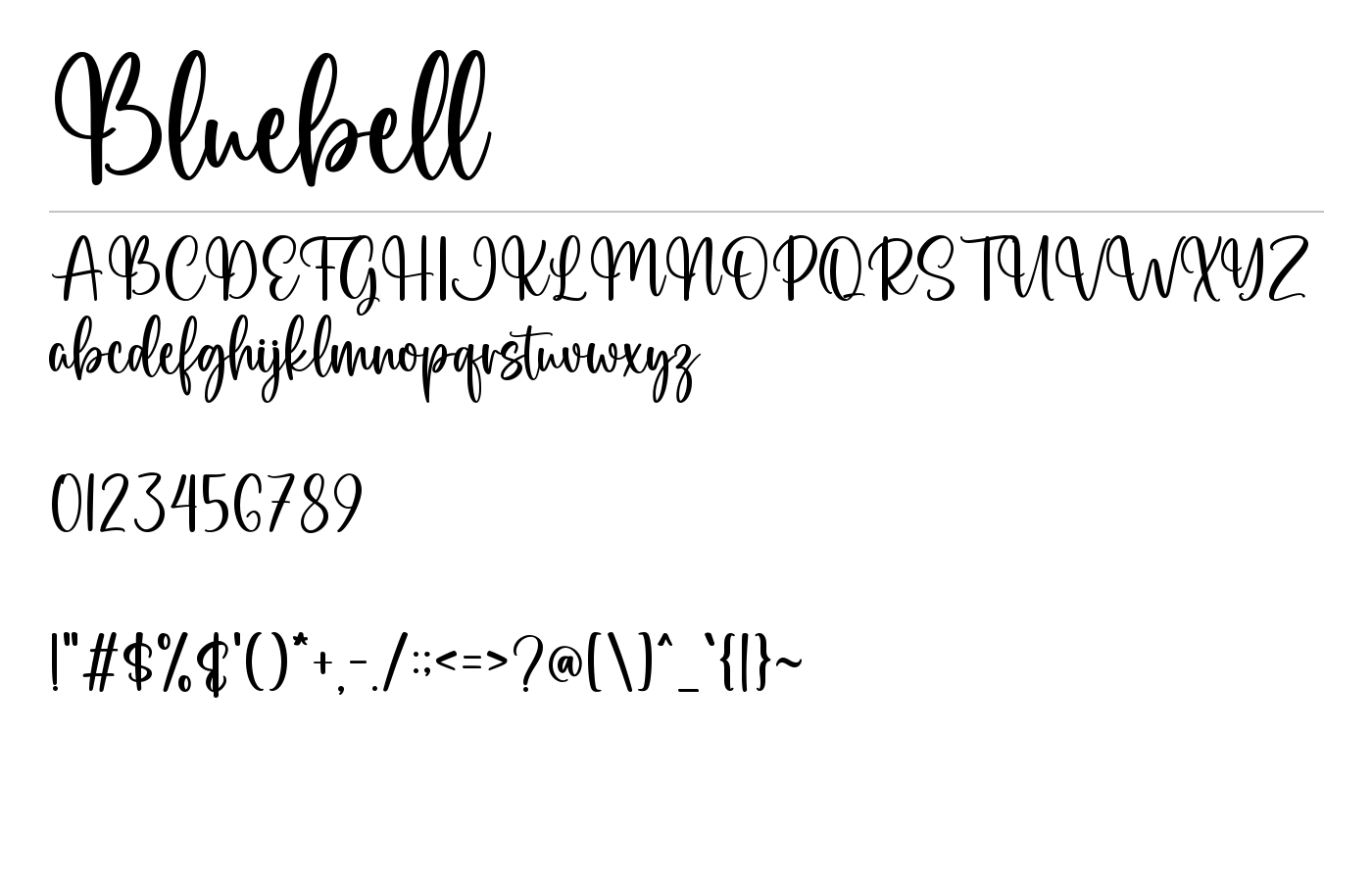
Bluebell is a charming handwritten script font characterized by its flowing, elegant strokes and medium contrast between thick and thin lines. Its playful yet refined letterforms, featuring tall x-heights and smooth curves, make it ideal for creative branding, invitations, and decorative headlines where a personal, stylish touch is desired. This font brings a friendly and sophisticated feel that works beautifully in fashion, lifestyle, and boutique projects.
Bluebell Font
About Bluebell Font